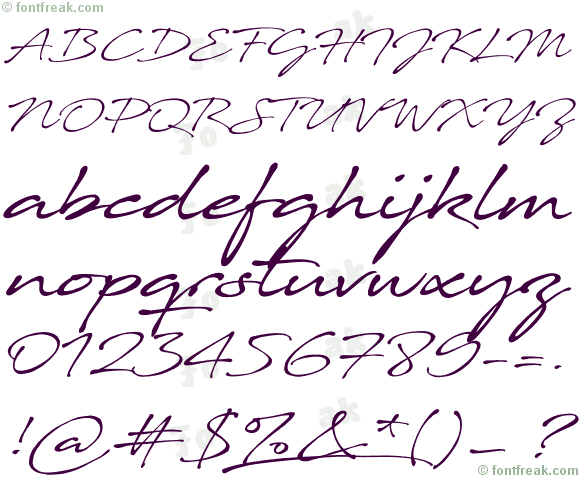
Javacom
About Javacom
Javacom, designed by Youssef Habchi in 2017, is a versatile display font that combines elegance with a modern touch. This font features a unique handwritten style, characterized by its fluid strokes and graceful curves. The stroke weight is consistent, offering a balanced appearance that maintains readability while exuding personality. The contrast in the letterforms is subtle but effective, which enhances its overall aesthetic appeal. The spacing between characters is well-considered, allowing for clarity and ease of use in various applications.
This font is ideal for a range of creative projects. It shines in wedding invitations, where its elegant script can convey romance and sophistication. The playful yet refined nature of Javacom also makes it an excellent choice for branding materials, particularly for artisanal goods or boutique shops. Additionally, it can enhance restaurant menus, adding a touch of flair to the dining experience. Graphic designers will find it suitable for crafting eye-catching posters and promotional materials that require a personal touch. Content creators can utilize this font to add a unique character to their blogs or social media graphics.
Targeted primarily at graphic designers, small business owners, and content creators, Javacom offers a refreshing alternative to more conventional typefaces. Its artistic flair and readability make it a go-to choice for anyone looking to make a statement in their design work.
What sets the Javacom font apart is its ability to blend artistry with functionality. It stands out not only for its aesthetic qualities but also for its versatility across various mediums. For those seeking a distinctive font that captures attention while remaining approachable, the Javacom font free download is an excellent option to consider.